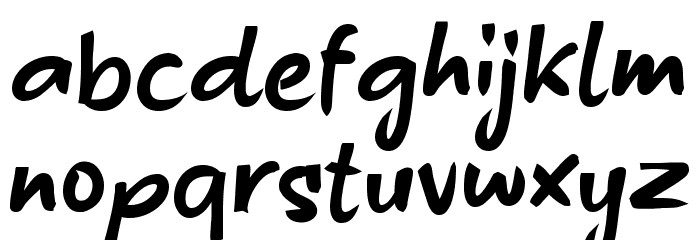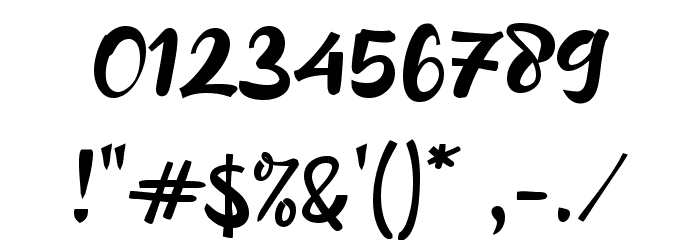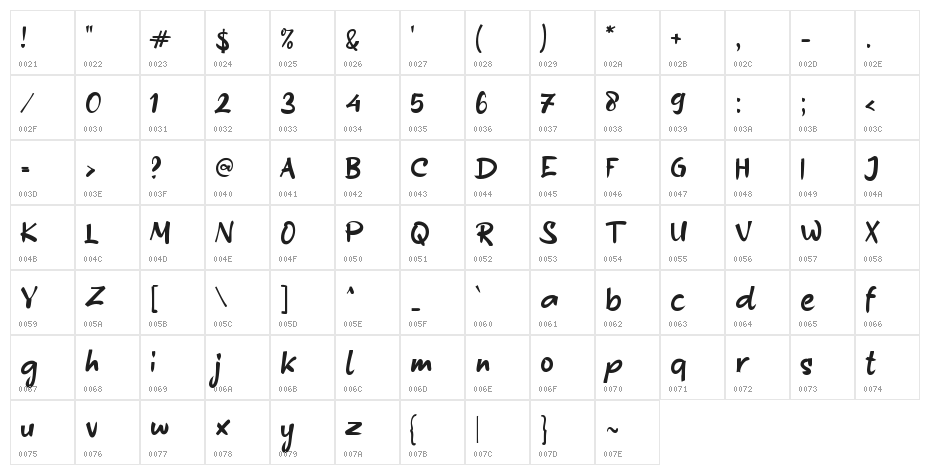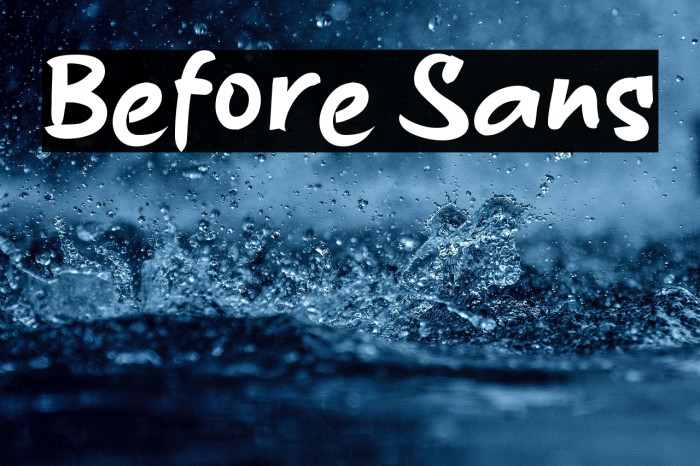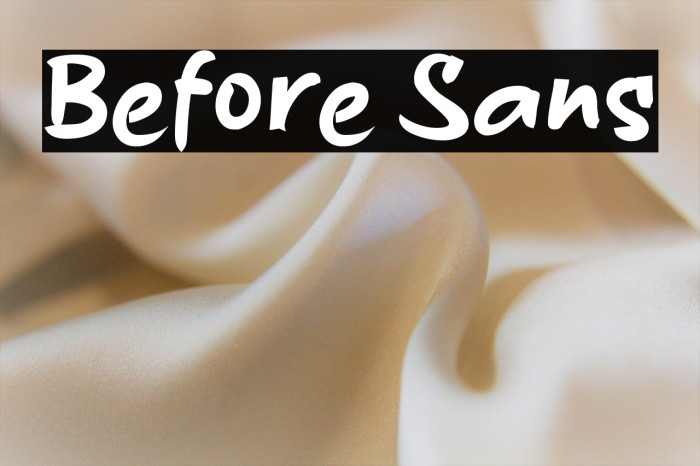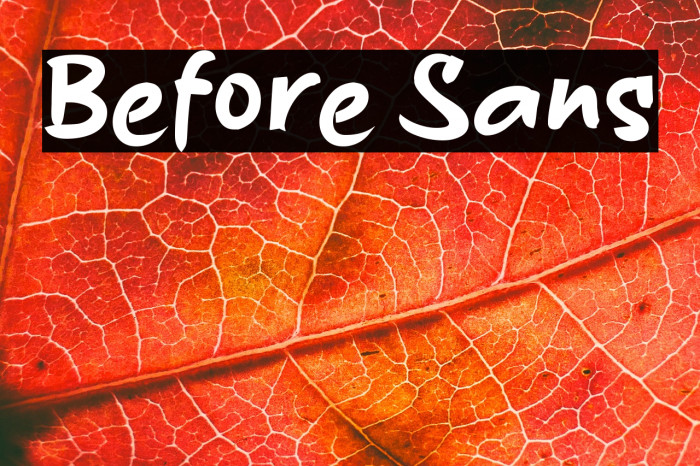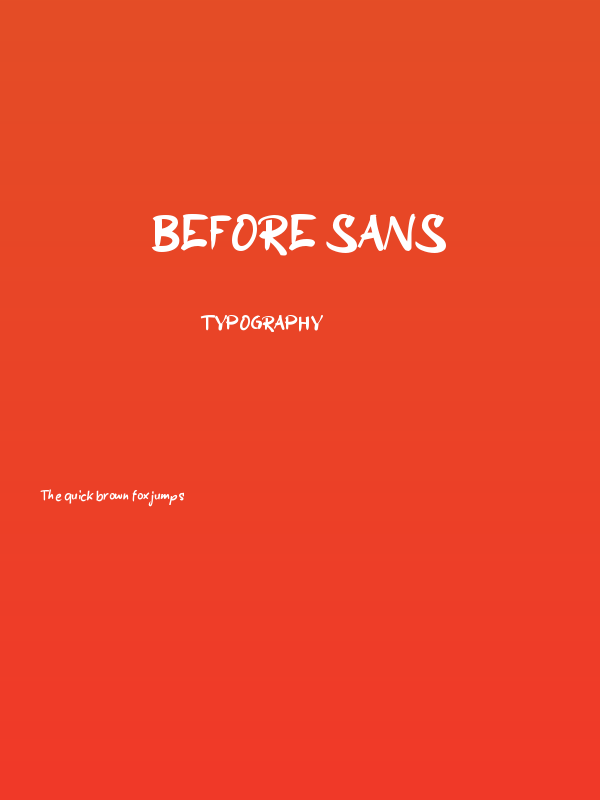
Before Sans Font
This font features a bold and dynamic script style, characterized by its fluid, handwritten appearance. The letters are slightly slanted, giving a sense of movement and energy. The strokes are thick and consistent, providing a strong visual impact. The uppercase letters are bold and prominent, while the lowercase letters maintain a cohesive flow. Numbers and special characters are designed to match the overall style, ensuring uniformity across all elements. This font is ideal for projects that require a personal touch or a sense of creativity and flair.
A bold, dynamic script font with a handwritten style.
- Proposed Projects: Ideal for branding, invitations, posters, and creative projects requiring a personal touch.
- Category: Script